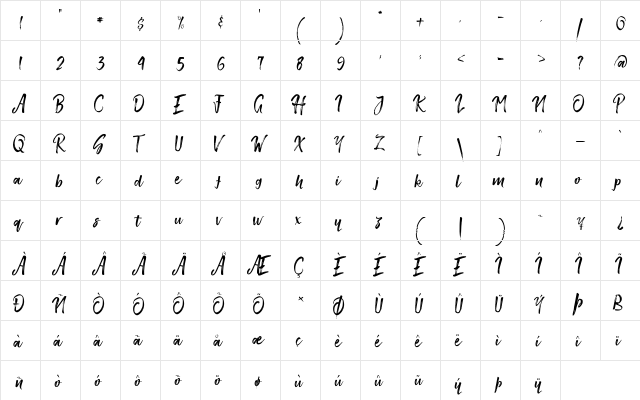
Smithen Regular
Design Context for Smithen Typeface
Smithen is a composed and adaptable typeface that performs quietly and consistently across a wide range of design contexts.